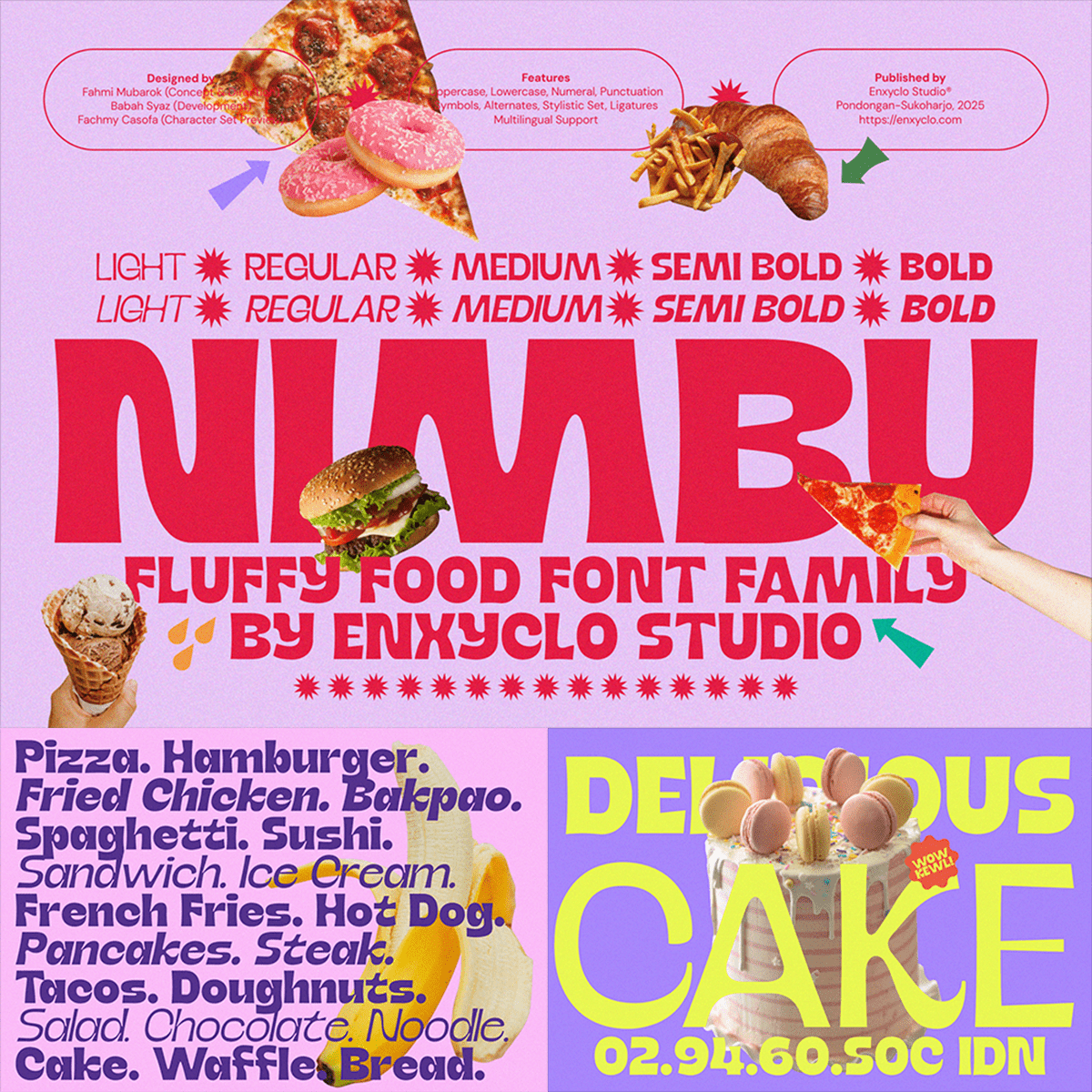
NIMBU - Food Font
NIMBU is a font family, food-inspired typeface crafted to make your culinary designs truly stand out. Drawing inspiration from the fresh and zesty essence of flavorful dishes, Nimbu blends various weight, warmth, and character into a font that’s perfect for eye-catching headlines, tempting menus, and deliciously bold branding. Whether you’re designing a restaurant logo, a cozy café menu, or vibrant food packaging, Nimbu adds that extra touch of taste and energy to your creations.
Perfect for:
- Ideal for logos, menus, packaging, and all culinary-themed visuals
- Bold logos and brand identity
- Impactful headlines and posters
- Contemporary editorial and magazine layouts
- Packaging and advertising design
- Visual branding for startups and creative agencies
- Any project requiring a powerful modern typeface